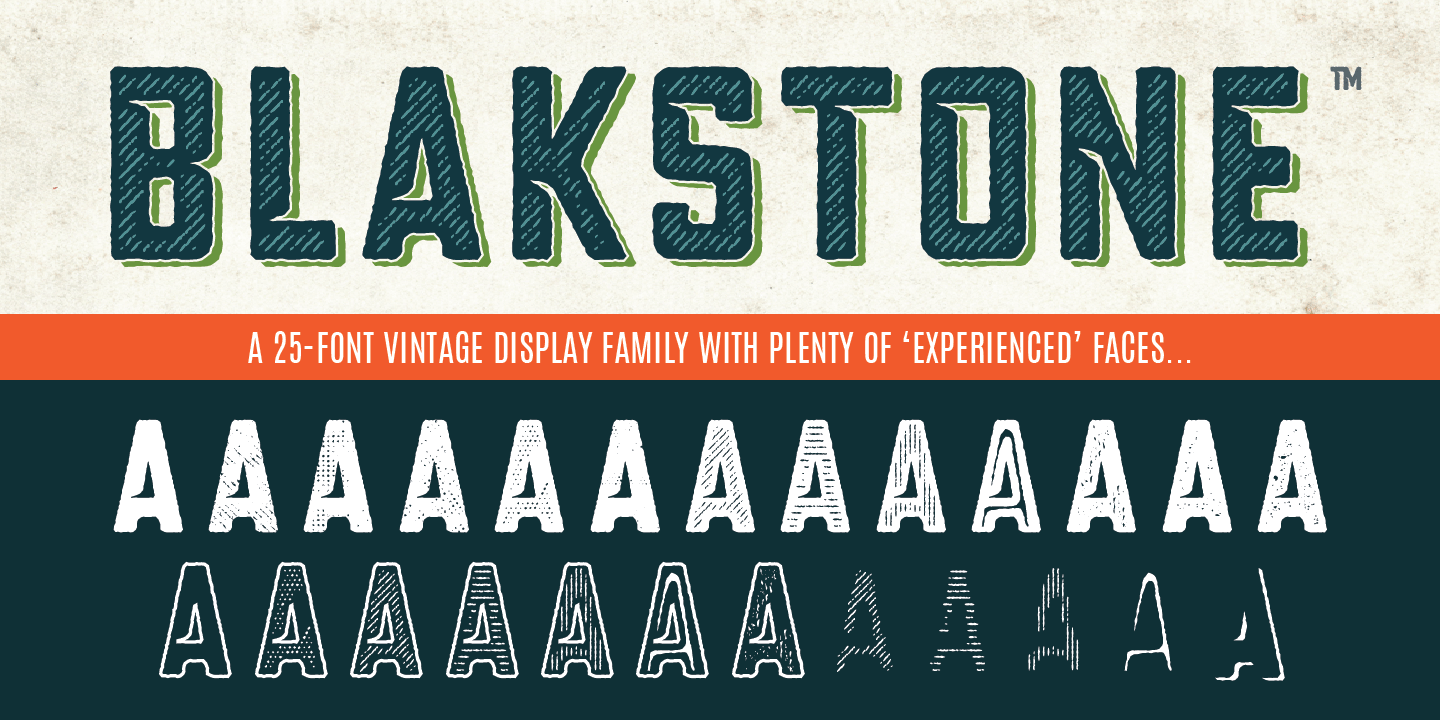
Blakstone Font is perfect for architectural firm branding, stone masonry communications, construction company identity, heritage building materials, luxury residential marketing, solid industrial design, monumental signage projects, prestigious real estate branding, traditional craftsmanship labels, and substantial corporate applications. This distinguished typeface creates authentic stone-solid atmosphere in both architectural print and digital construction platforms.
What makes Blakstone Font exciting is its masterful embodiment of architectural strength with stone-carved elegance and monumental permanence. The font features solid letterforms with stone-inspired proportions and architectural character details that evoke granite foundations, carved monuments, and timeless construction. Its substantial design establishes an atmosphere of architectural authority and construction reliability that resonates with building professionals and clients seeking authentic structural integrity and lasting quality.
Blakstone Font family includes architectural variations: Light, Regular, Medium, Bold, and Monument versions, each with stone-carved alternates and construction character sets. Each variant maintains the font's structural integrity while providing designers with substantial options for creating architectural typography systems and construction communication materials.
This exceptional architectural typeface brings authentic construction credibility to projects requiring solid presentation. Whether you're designing building brands, construction marketing, or architectural portfolio materials, Blakstone Font Free Download delivers outstanding strength and architectural sophistication. The font's stone-solid proportions and monumental details ensure memorable structural impact across various construction applications.
Architecture firms and construction companies recognize how Blakstone Font perfectly embodies the principles of structural integrity and architectural permanence. Its solid foundation combined with monumental elegance makes it essential for construction and architectural design projects. Download today and build your designs with this exceptionally strong architectural typography.